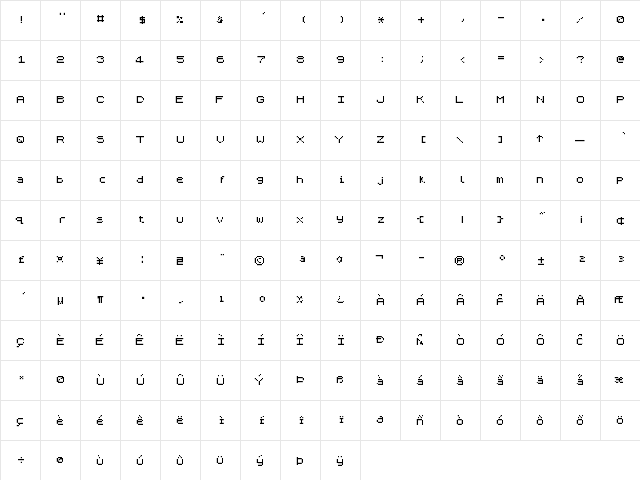
ZX Spectrum-7 Regular
| Foundry | Style-7 |
| Designer | Sizenko Alexander |
Design Context for ZX Spectrum-7 Typeface
ZX Spectrum-7 is a composed and adaptable typeface that performs quietly and consistently across a wide range of design contexts.